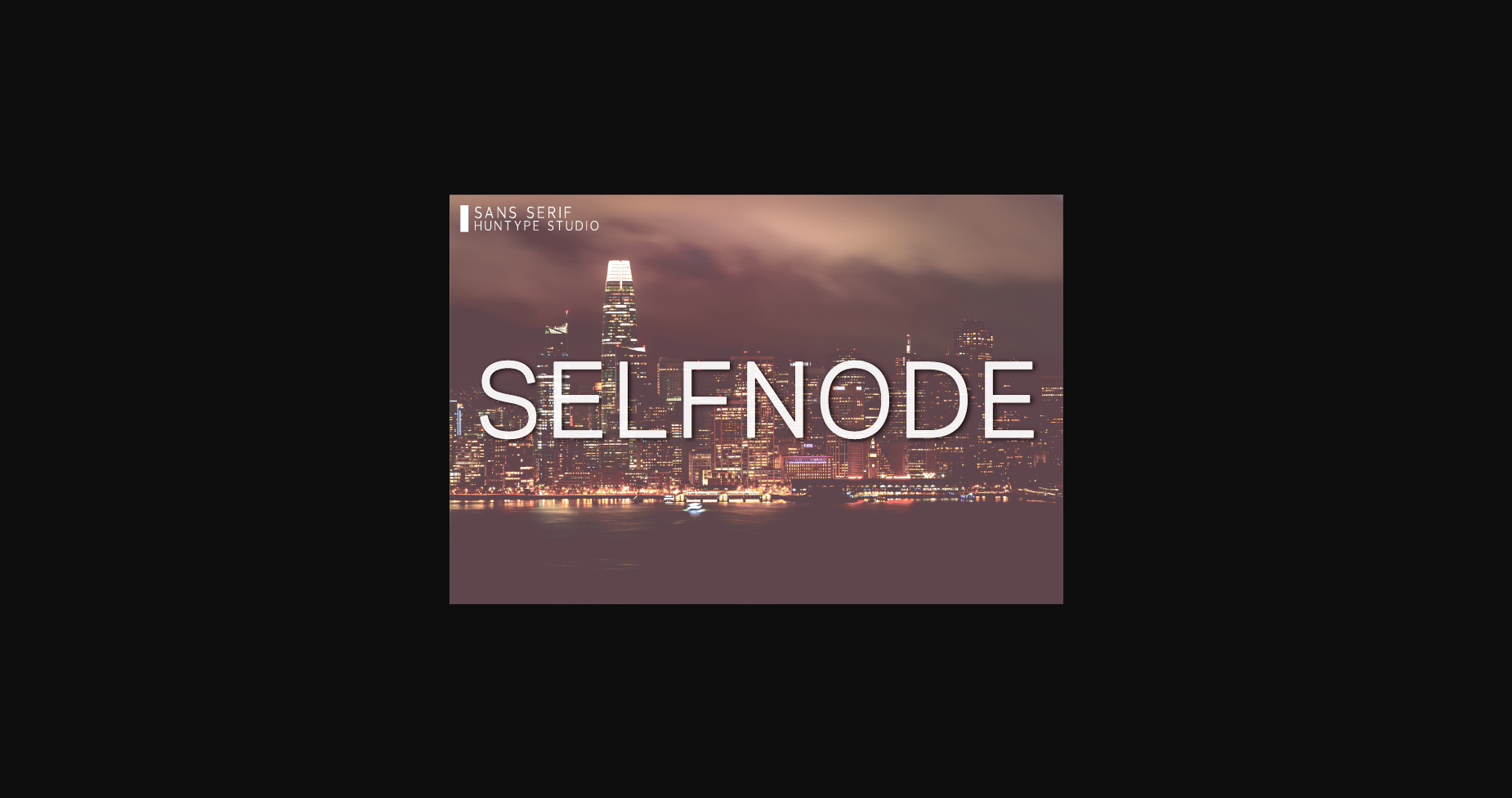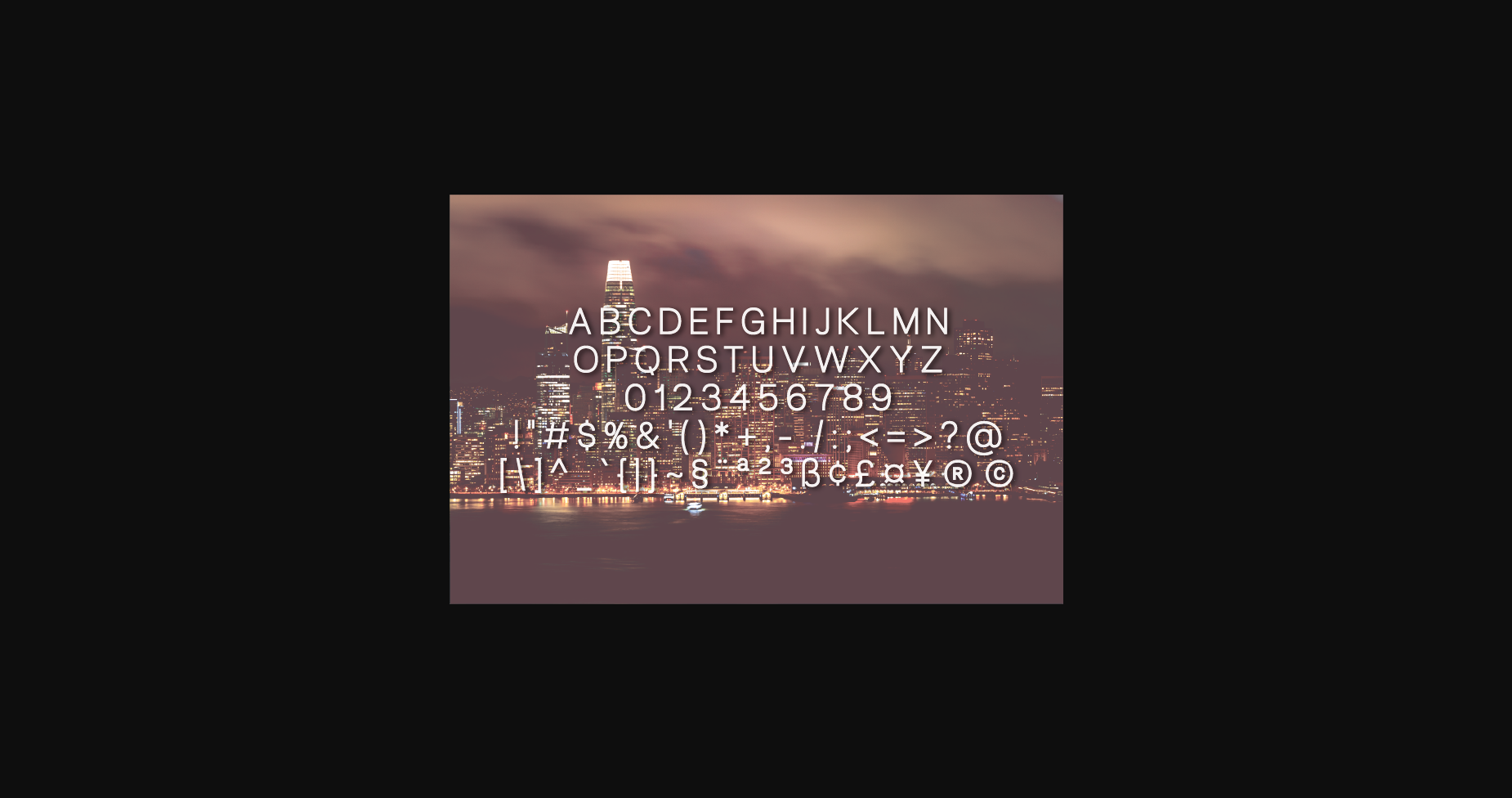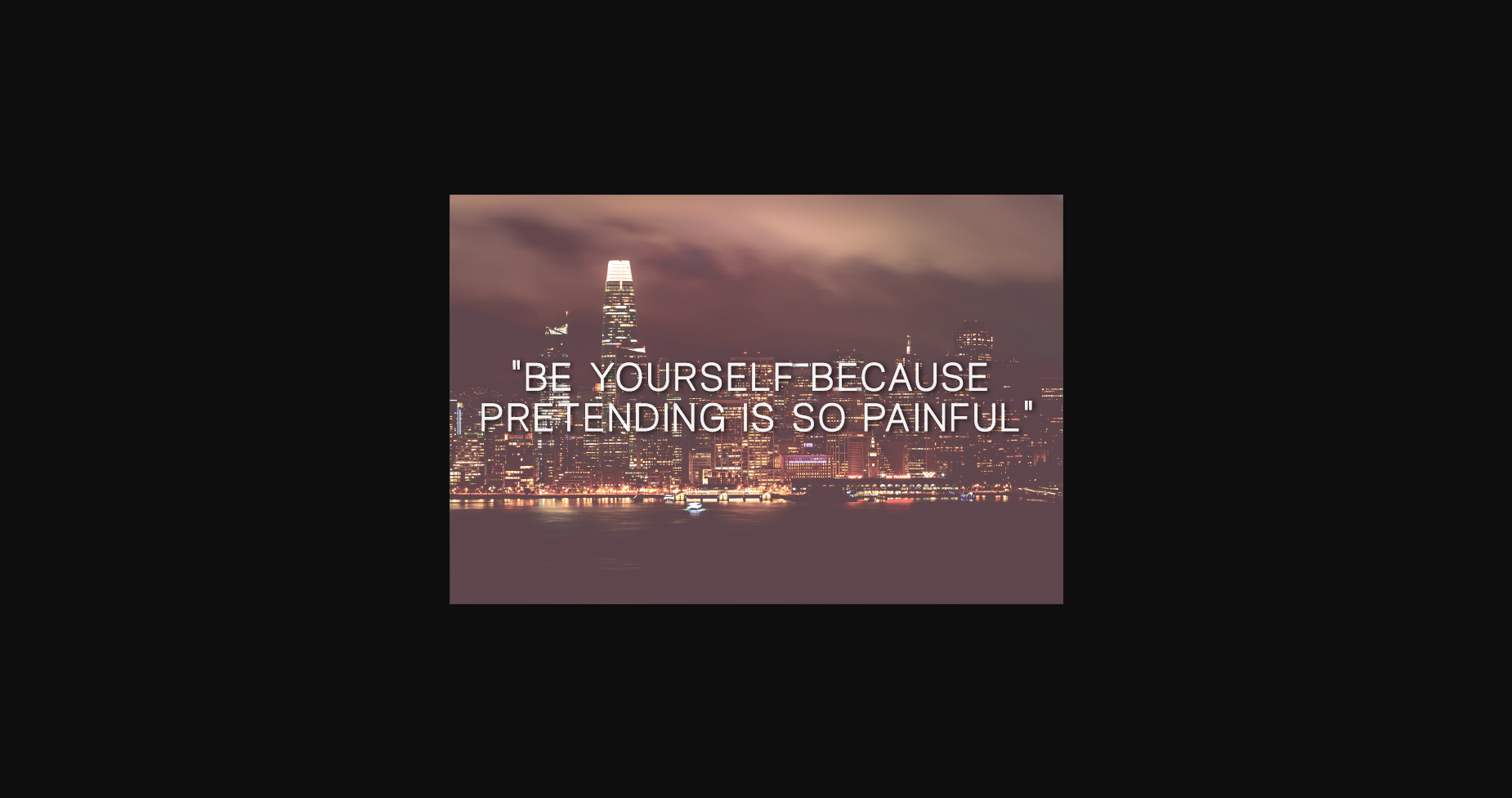
Selfnode Font
About Selfnode Font
Selfnode is a minimal, yet elegant sans serif font. Suitable to a wide variety of designs due to its neat and simple style, this font has the potential to become your favorite go-to font, no matter the occasion!